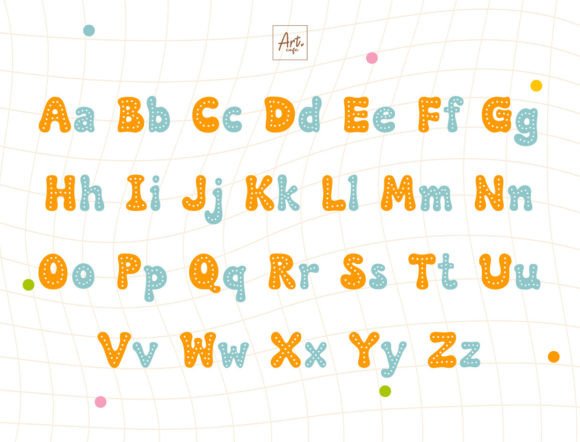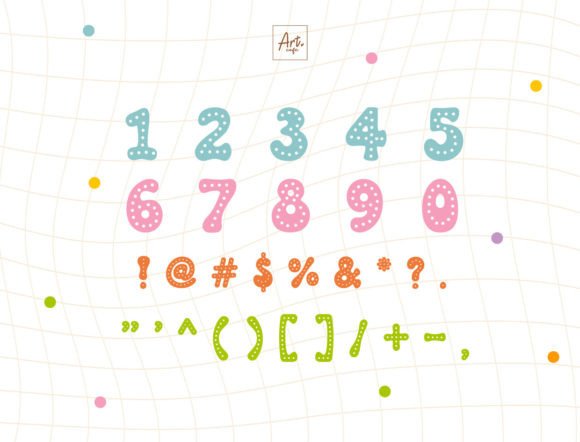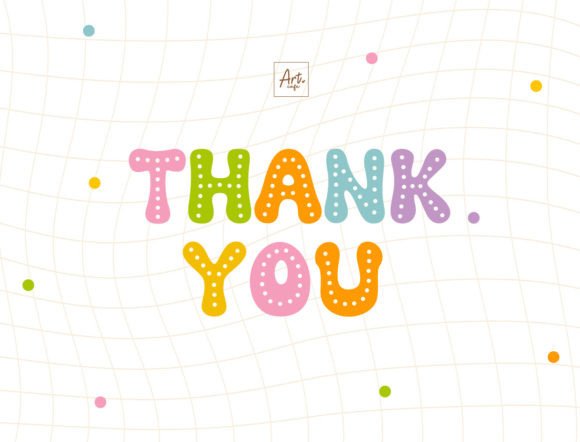
Introduction to Retro Fancy Dot Font
Introducing Retro Fancy Dot, a whimsical, and trendy font design, adorned with fun dotted lines.
Its playful charm makes it the perfect choice for standout headlines in any project Whether itโs a โBack to Schoolโ announcement, academic bulletins for teachers, playful content for kids, or invigorating invitations for parties, the Retro Fancy Dot font adds an enjoyable punch to your presentation.
Key Features of Retro Fancy Dot Font
Why Choose Retro Fancy Dot Font?
Retro Fancy Dot Font offers exceptional quality and versatility, making it a valuable addition to your design toolkit. Whether you’re creating for personal projects or commercial use, Retro Fancy Dot Font delivers professional results.